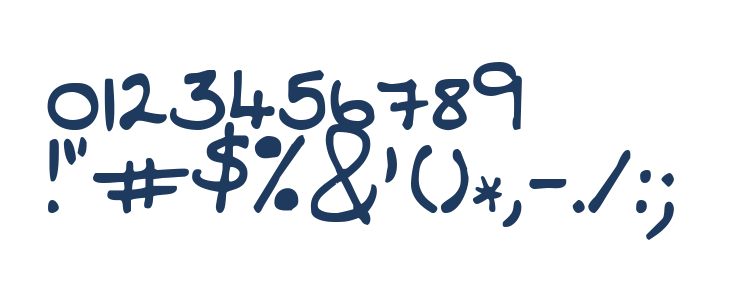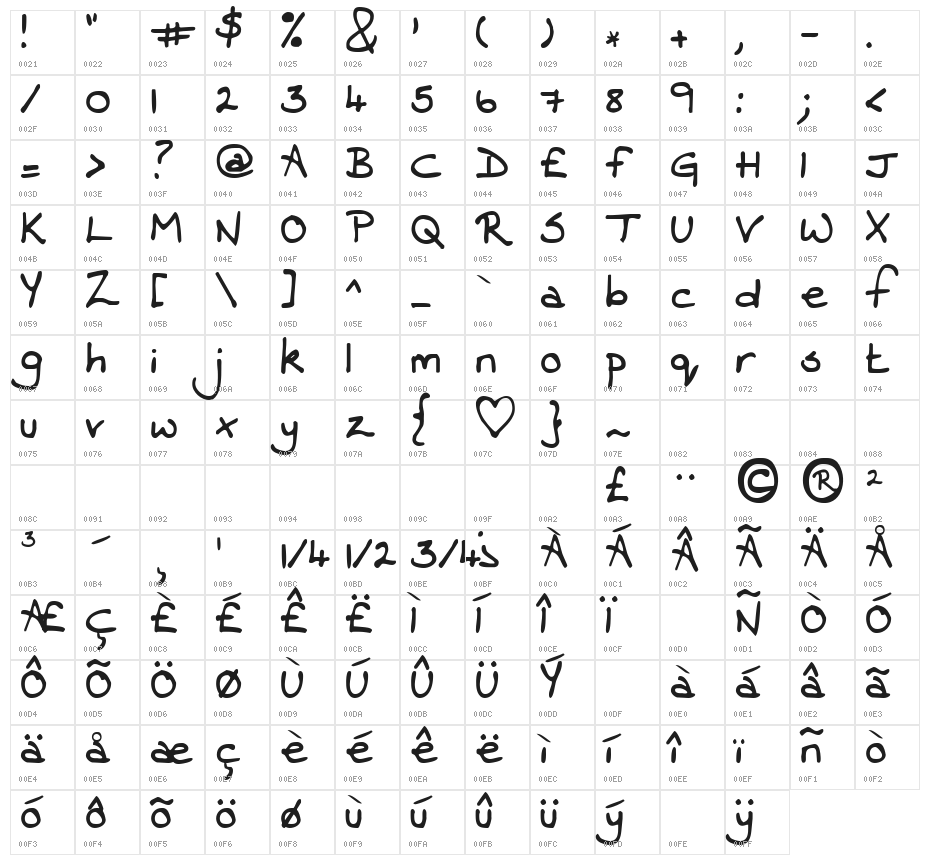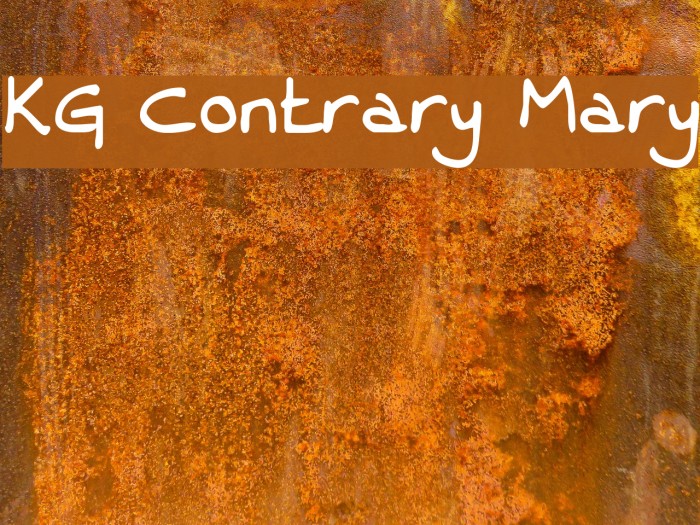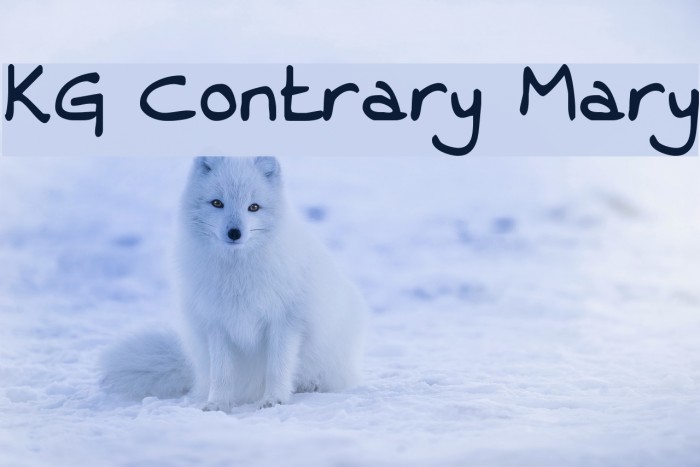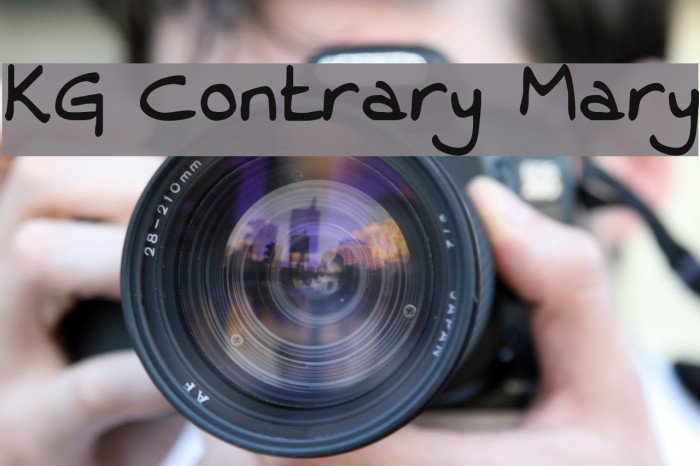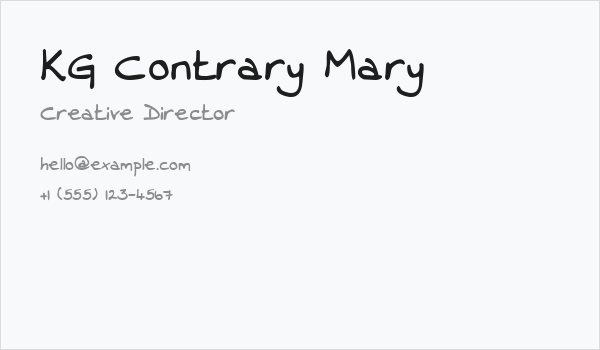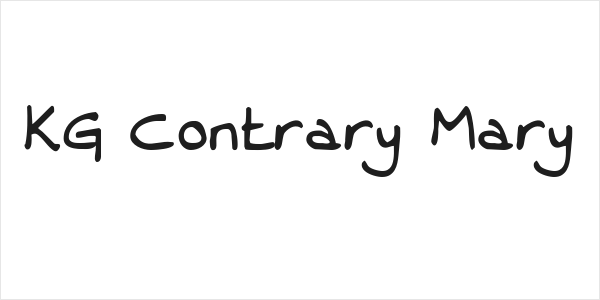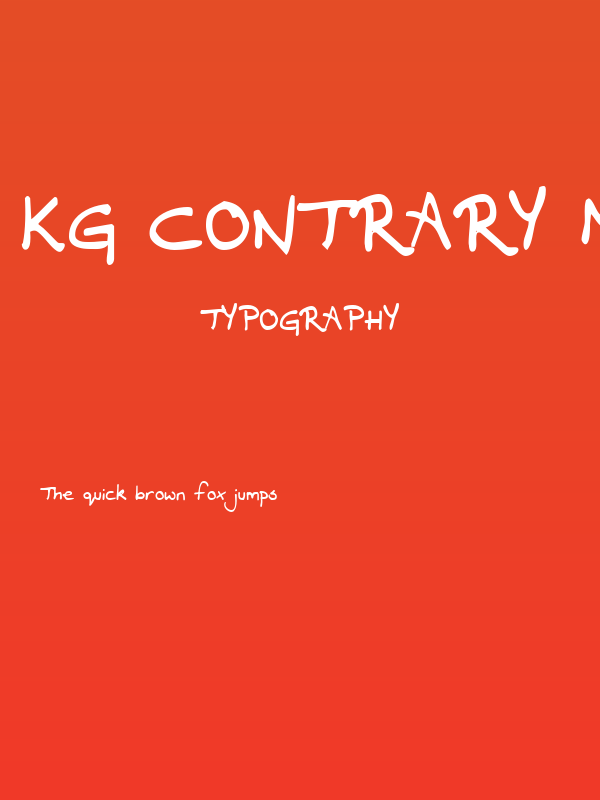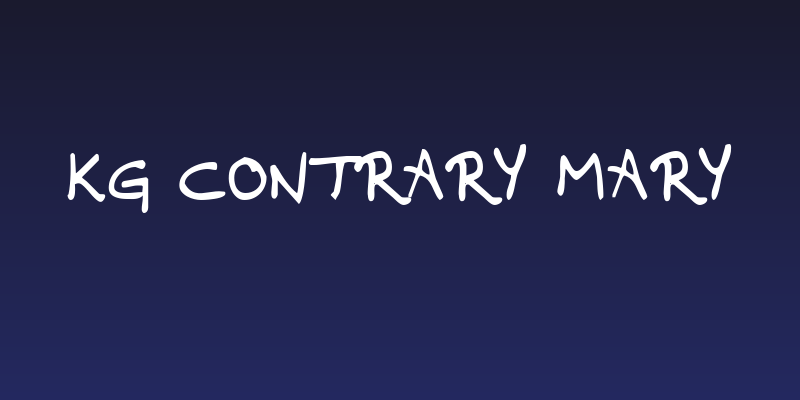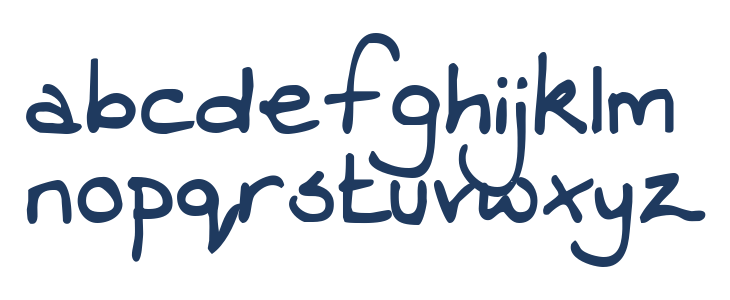
KG Contrary Mary Font
KG Contrary Mary Description
This font features a playful and whimsical handwritten style, characterized by its irregular and flowing letterforms. The strokes are bold and rounded, giving it a friendly and approachable appearance. Each character has a unique flair, with varying heights and widths, adding to its casual and informal feel. The font maintains a consistent baseline, but the ascenders and descenders vary in length, contributing to its dynamic look. The overall style is reminiscent of a personal note or doodle, making it ideal for creative and informal projects.
| Proposed Projects | Ideal for children's books, greeting cards, playful branding, and informal invitations. |